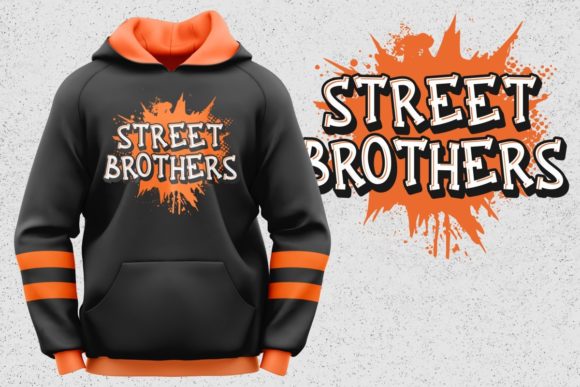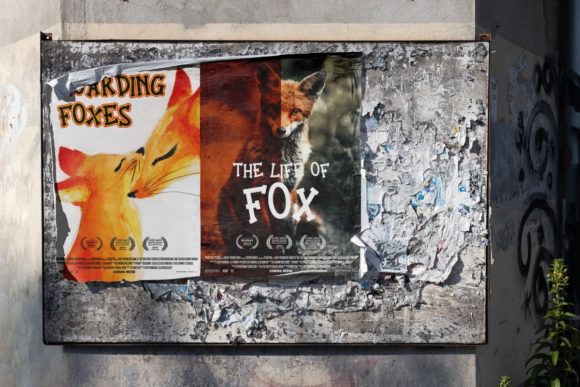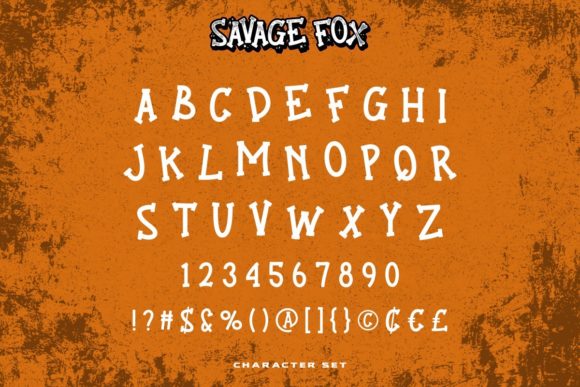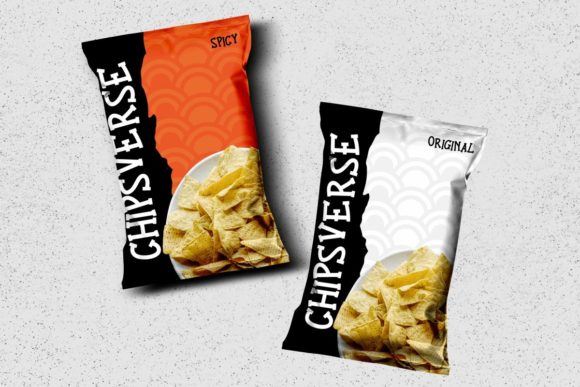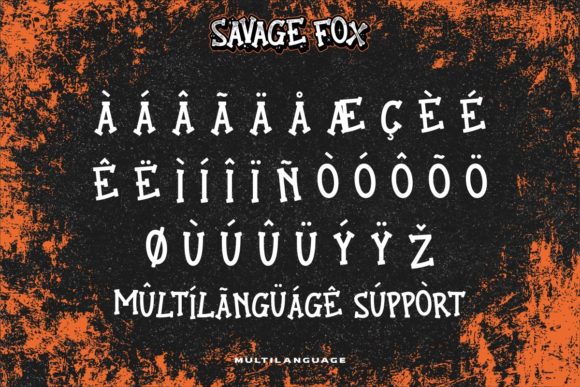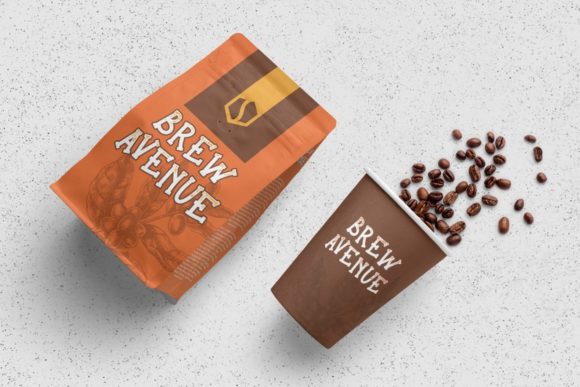
Introduction to Savage Fox Font
Have you ever stared at a blank page, desperate for inspiration to strike? The cursor blinks, taunting you with its emptiness, as you search for that perfect font to bring your creative project to life. It’s moments like these that make you appreciate the value of a well-designed font.
Enter the Savage Fox Font, a dark and mysterious display font that’s sure to add an air of sophistication to your next design project. With its high-quality design and PUA encoded glyphs, this font is a treasure trove of creative possibilities. Whether you’re designing a logo, product packaging, or a poster, the Savage Fox Font is the perfect addition to your design arsenal.
Key Features of Savage Fox Font
- High-quality vector graphics for a crisp and clear appearance in any creative project.
- Includes a transparent background, allowing for seamless integration into various design elements.
- Features a unique, bold design that stands out in any creative project, making it perfect for headings and titles.
Honest Review: Savage Fox Font
As a designer, I’m always on the lookout for high-quality fonts to enhance my creative projects. The Savage Fox Font caught my eye with its unique and edgy design. After giving it a try, I’m excited to share my honest review.
- What works well: ✨ The Savage Fox Font is perfect for designers who want to add a touch of sophistication and elegance to their projects. The font’s sleek and modern design makes it ideal for creative projects that require a high level of sophistication.
However, I do have some limitations to mention. ⚠️ The Savage Fox Font may not be the best choice for projects that require a more subtle or minimalist design. The font’s bold and edgy style may overpower other design elements, so it’s essential to use it thoughtfully.
Overall, I’m impressed with the Savage Fox Font. It’s a great addition to any designer’s toolkit, and I appreciate its high-quality design. Whether you’re working on a creative project or just need a versatile font, the Savage Fox Font is definitely worth checking out.
Tips for Getting the Most Out of Savage Fox Font
To get the most out of the Savage Fox Font, use it on a transparent background to create a striking visual effect. Experiment with different font sizes, colors, and styles to add depth and interest to your design.
The Savage Fox Font is ideal for creative projects, such as logo design, typography-based art, and marketing materials. Its unique design makes it perfect for adding a touch of sophistication and elegance to your designs.